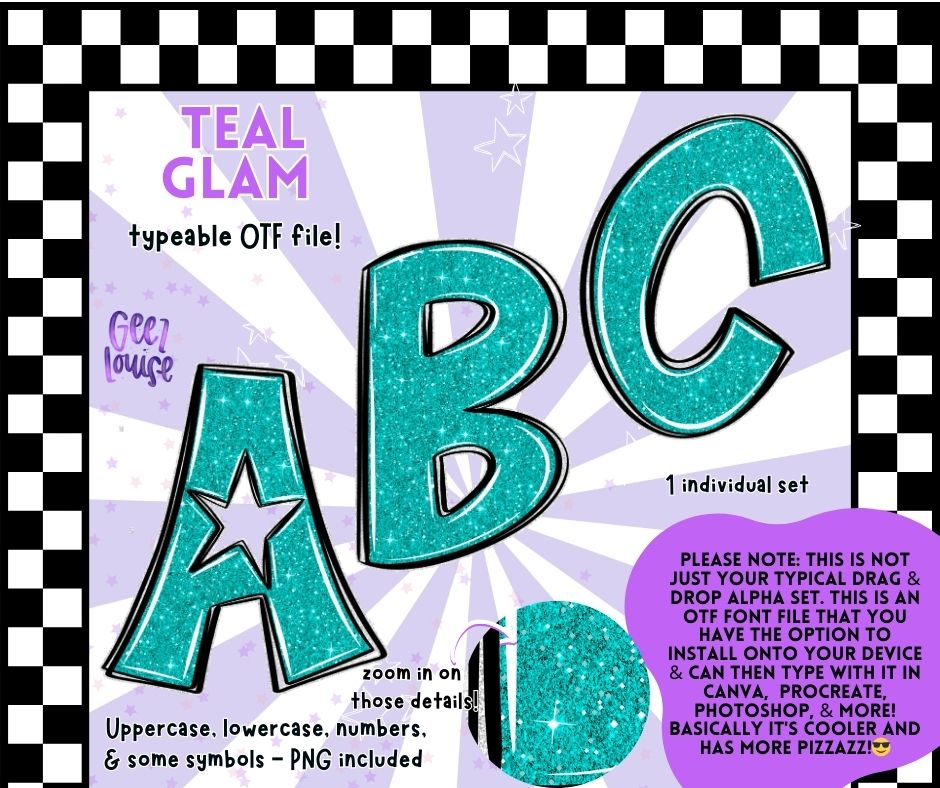
Teal Glam - OTF Font + PNG Alpha Set
Bring the drama and dazzle with Teal Glam — a high-shine, glitter-textured OTF font set that’s basically the Beyoncé of alphas. 💅
This typeable OTF font features a bold teal glitter design with a subtle 3D effect and shadow detailing to make your projects pop. Whether you’re designing for birthdays, bachelorettes, or just living your glitter-core dreams — this set does it all.